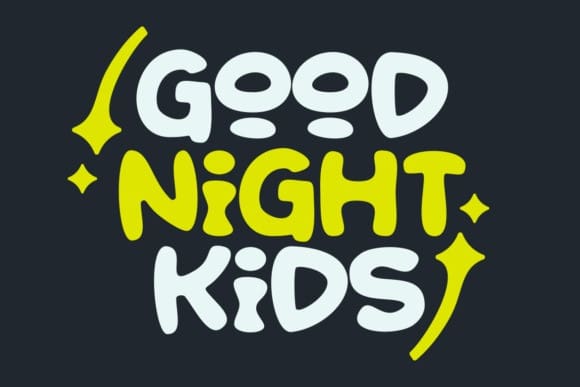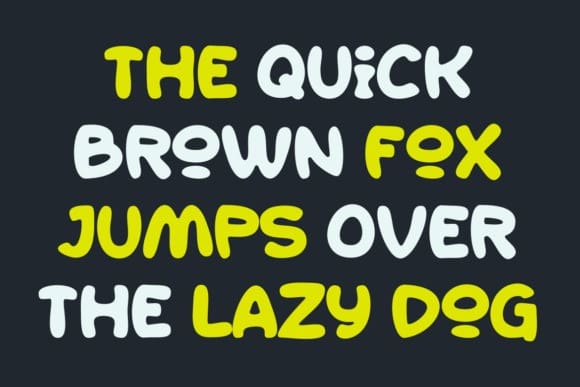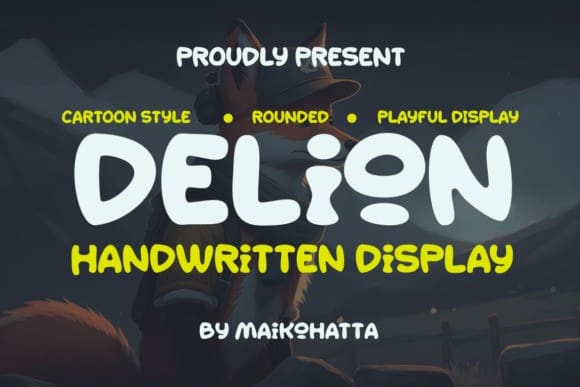
Delion Display Font
Delion Display Font is suitable for greeting cards, invitations, posters, baby clothing, books cover, quotes, logos, presentations, headline, etc. Outstanding in a wide range of contexts.